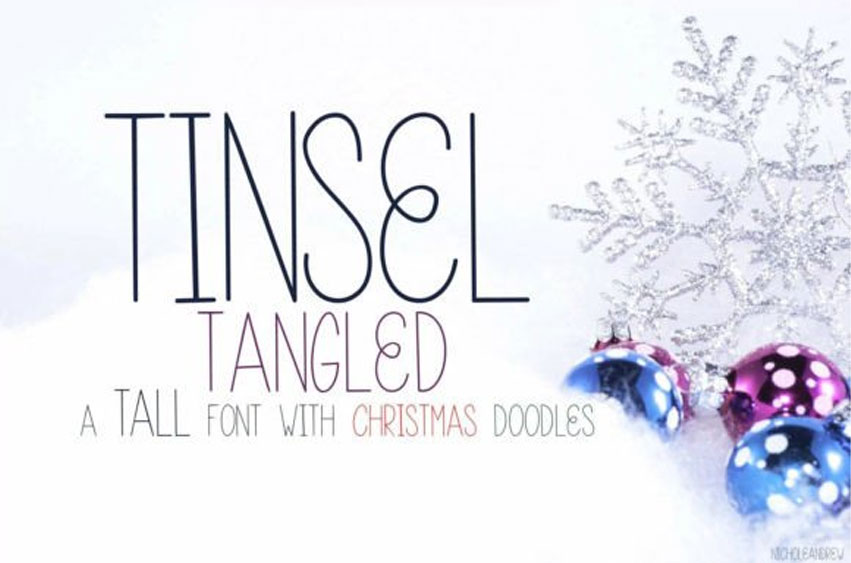
Tinsel Tangled Font is a tall monoline Christmas font with fun doodles. Tinsel Tangled includes 19 adorable Christmas Doodles to make your next project pop!
Use the doodles to accentuate your text, or color them in for a fun new look!